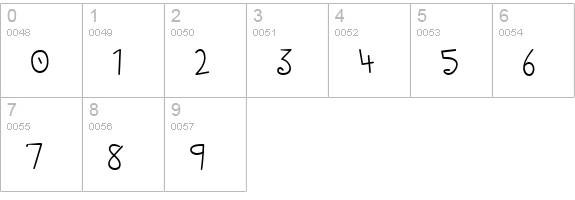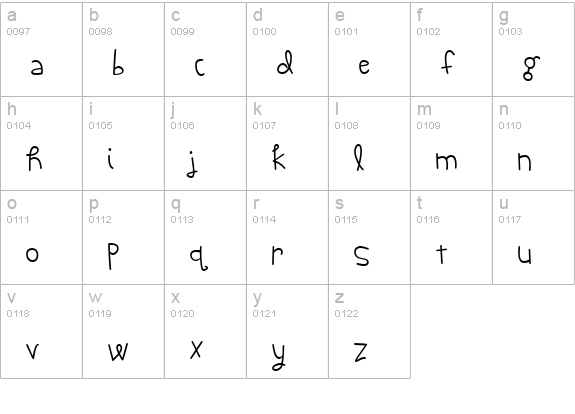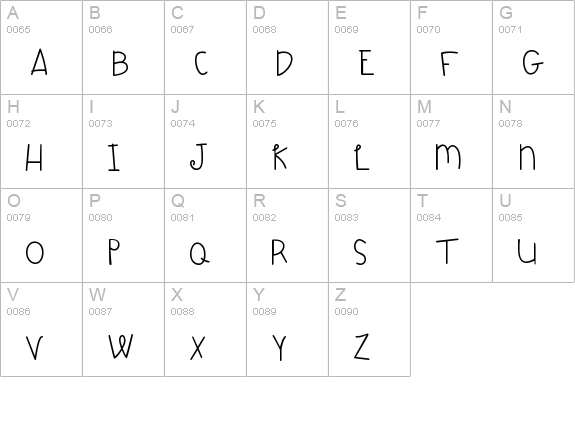
CK Fresh Font Details
Introducing CK Fresh font, a dynamic and modern typeface that effortlessly combines elegance with a touch of playfulness. This versatile font is perfect for a wide range of design projects, from branding to advertising to web design. CK Fresh features clean lines and a sleek appearance that will bring a fresh and contemporary look to any project. What's even better is that CK Fresh font is available for free download at FontsMarket.com! With its unique personality and eye-catching design, this font is sure to make a statement and captivate your audience. Whether you're a professional designer or just looking to add a stylish touch to your personal projects, CK Fresh font is the perfect choice. Don't miss out on this fantastic opportunity to elevate your designs with this stunning and free font. Download CK Fresh today and let your creativity shine!